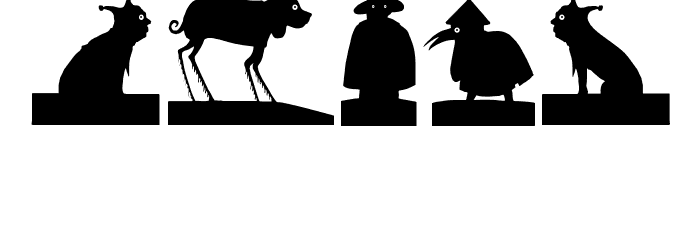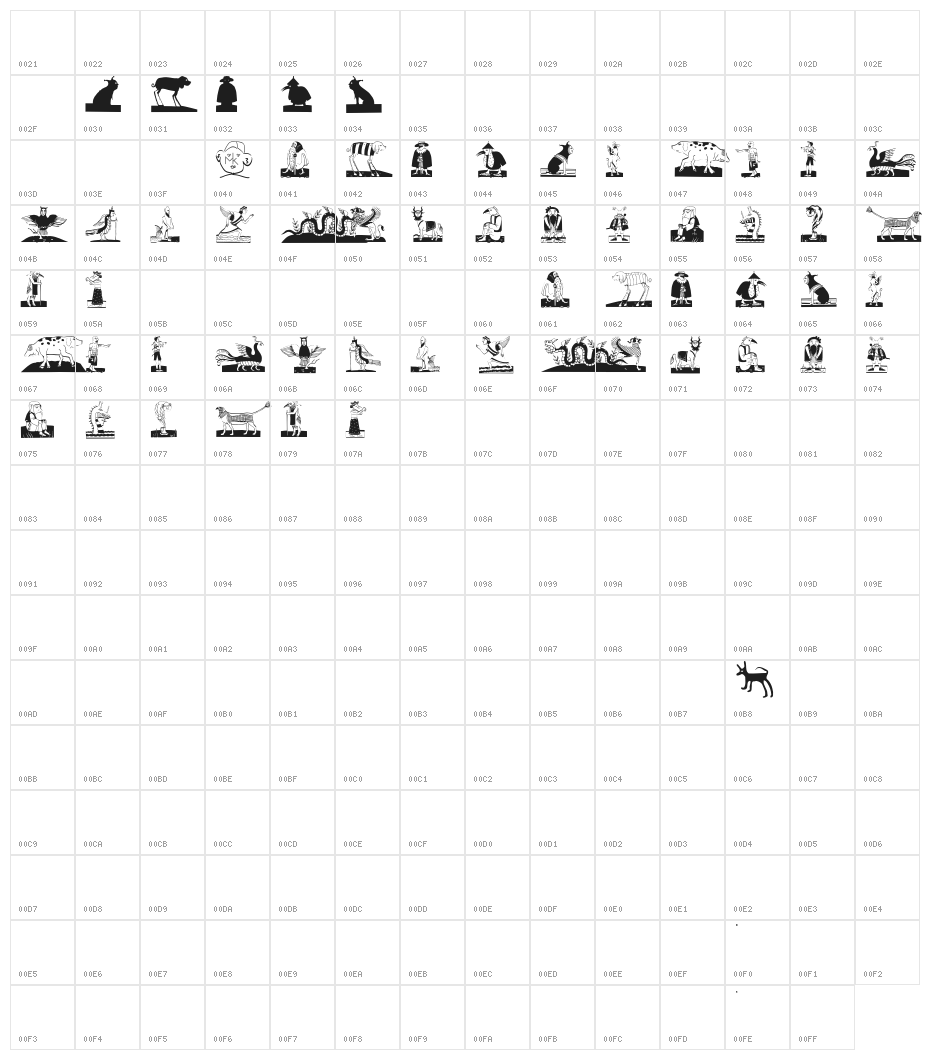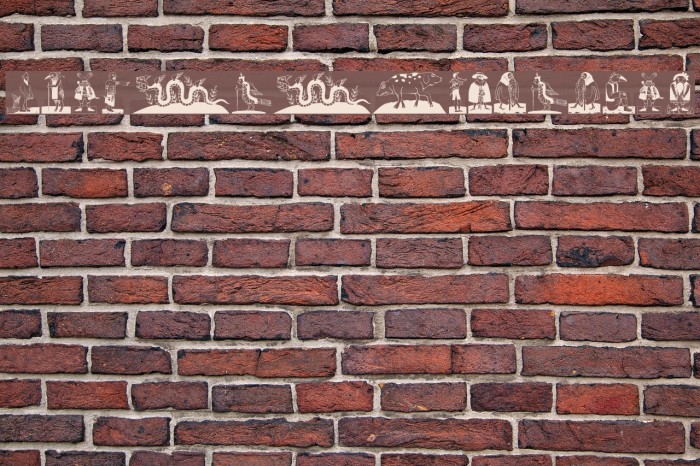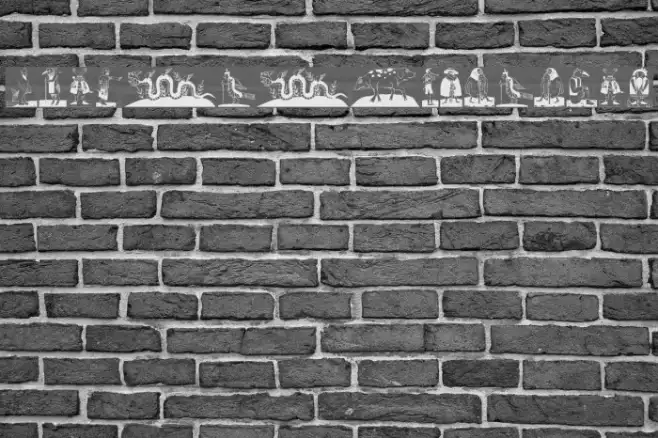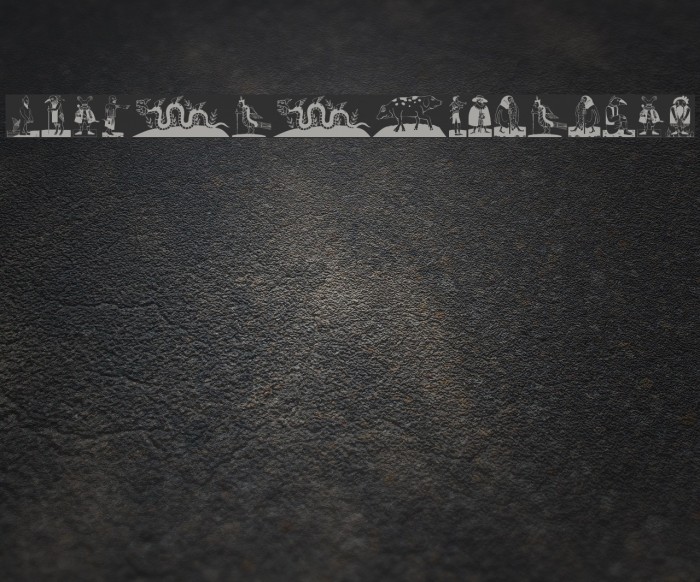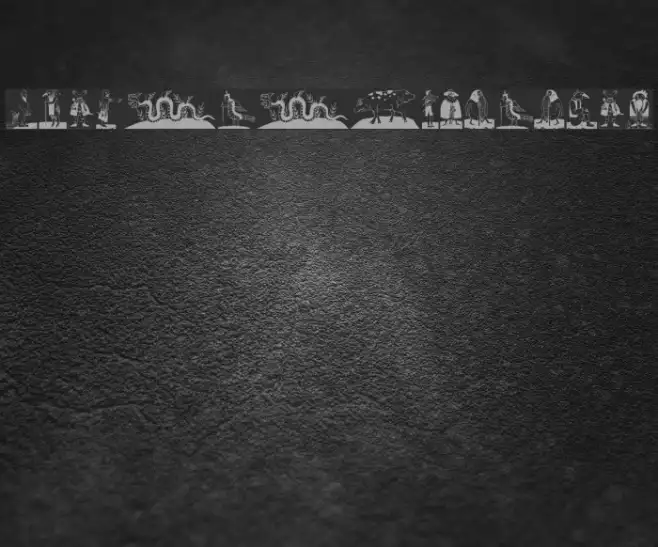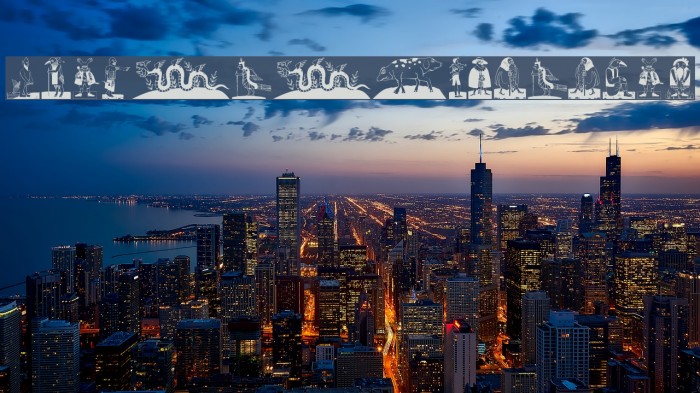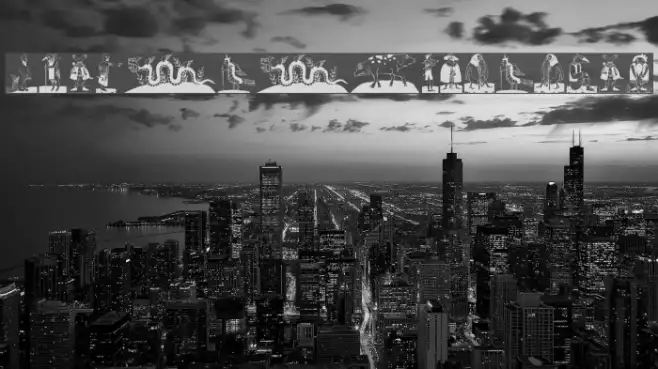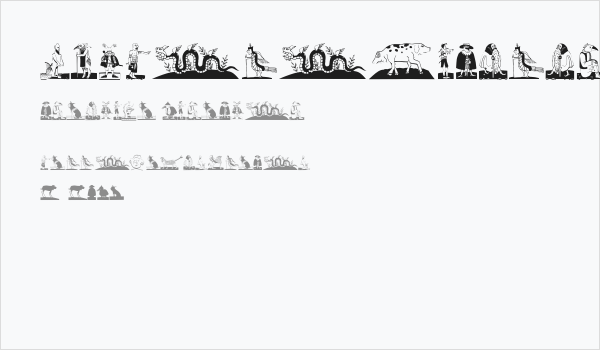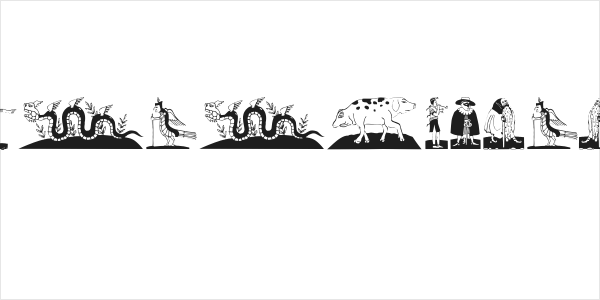
MythologicalArts Font
MythologicalArts Description
A highly decorative and illustrative font featuring mythological and folkloric characters and creatures, each glyph rendered as a detailed black-and-white silhouette or line drawing with strong narrative and artistic elements.
| Overall Style | Decorative, Narrative, Artistic |
| Use Case | Headlines, Logos, Posters, Themed Illustrations |
| Proposed Projects | Book covers, fantasy games, posters, educational materials, themed branding. |